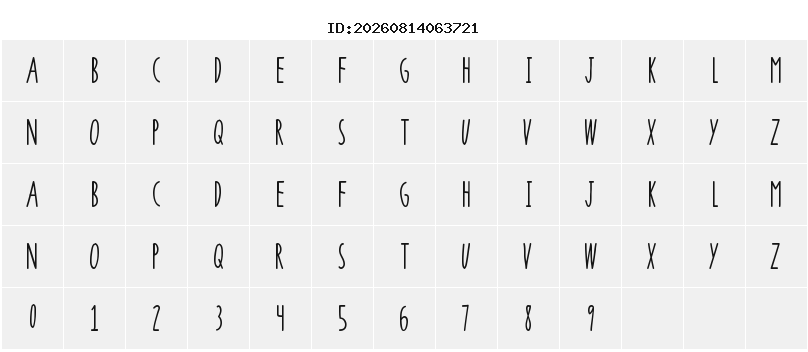
• Font Name: Super Raw
• Designer: Jusebox
About Super Raw.ttf
Super Raw.ttf is a modern, elegant sans-serif font designed for ultimate readability and visual harmony. Perfect for branding, headlines, web design, and print materials.